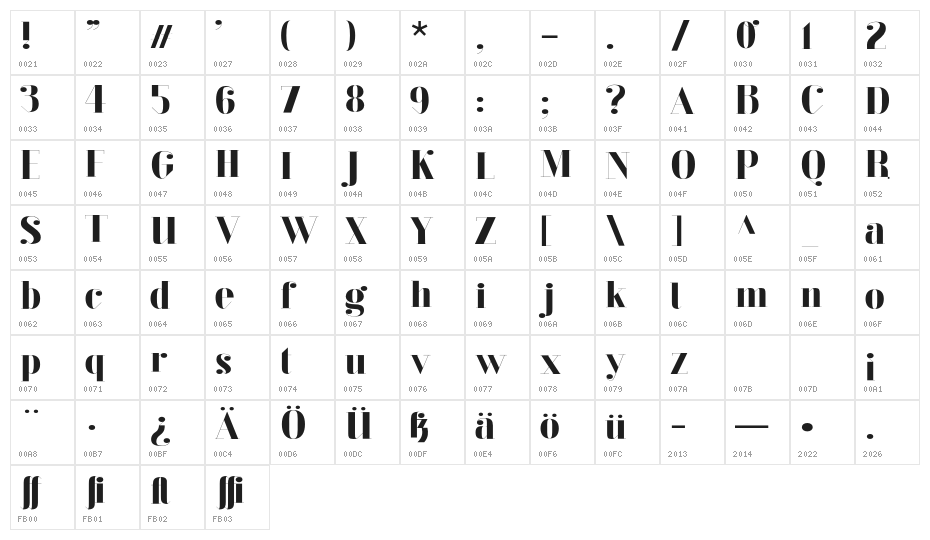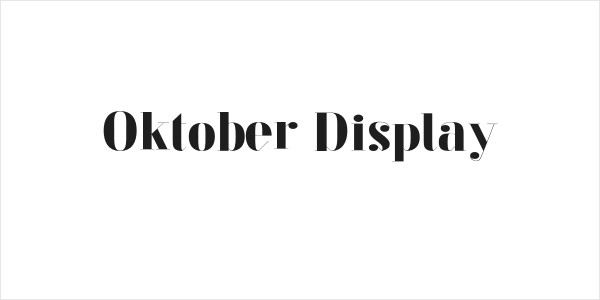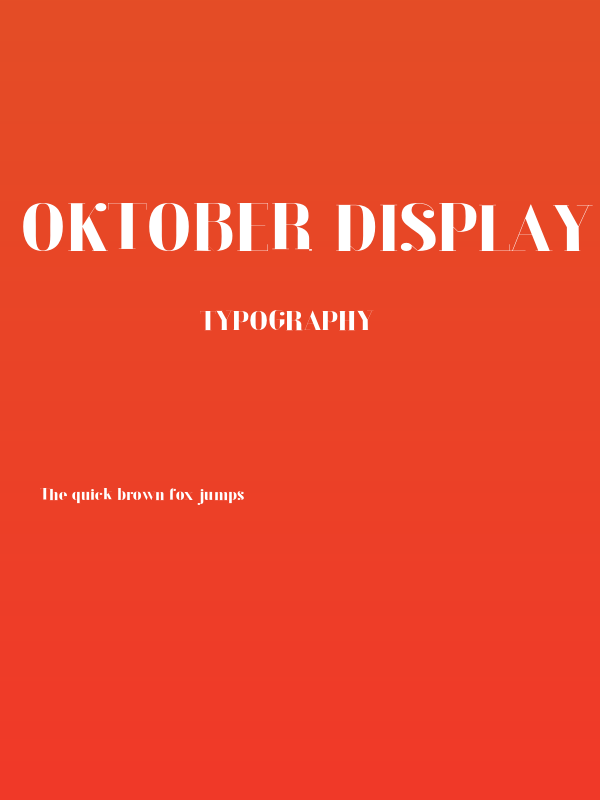
Oktober Display Font
Oktober Display Description
This font features a bold and striking design with high contrast between thick and thin strokes, giving it a dramatic and eye-catching appearance. The uppercase letters are tall and elegant, with sharp serifs that add a touch of sophistication. The lowercase letters maintain a consistent style, with rounded forms and a playful yet refined look. The numerals are equally bold, ensuring they stand out in any context. Special characters are designed with the same attention to detail, making them perfect for creative and impactful designs. Overall, this font combines modern aesthetics with a classic touch, making it versatile for various design needs.